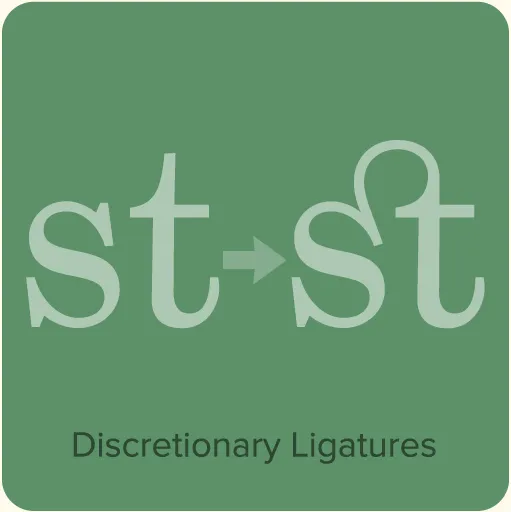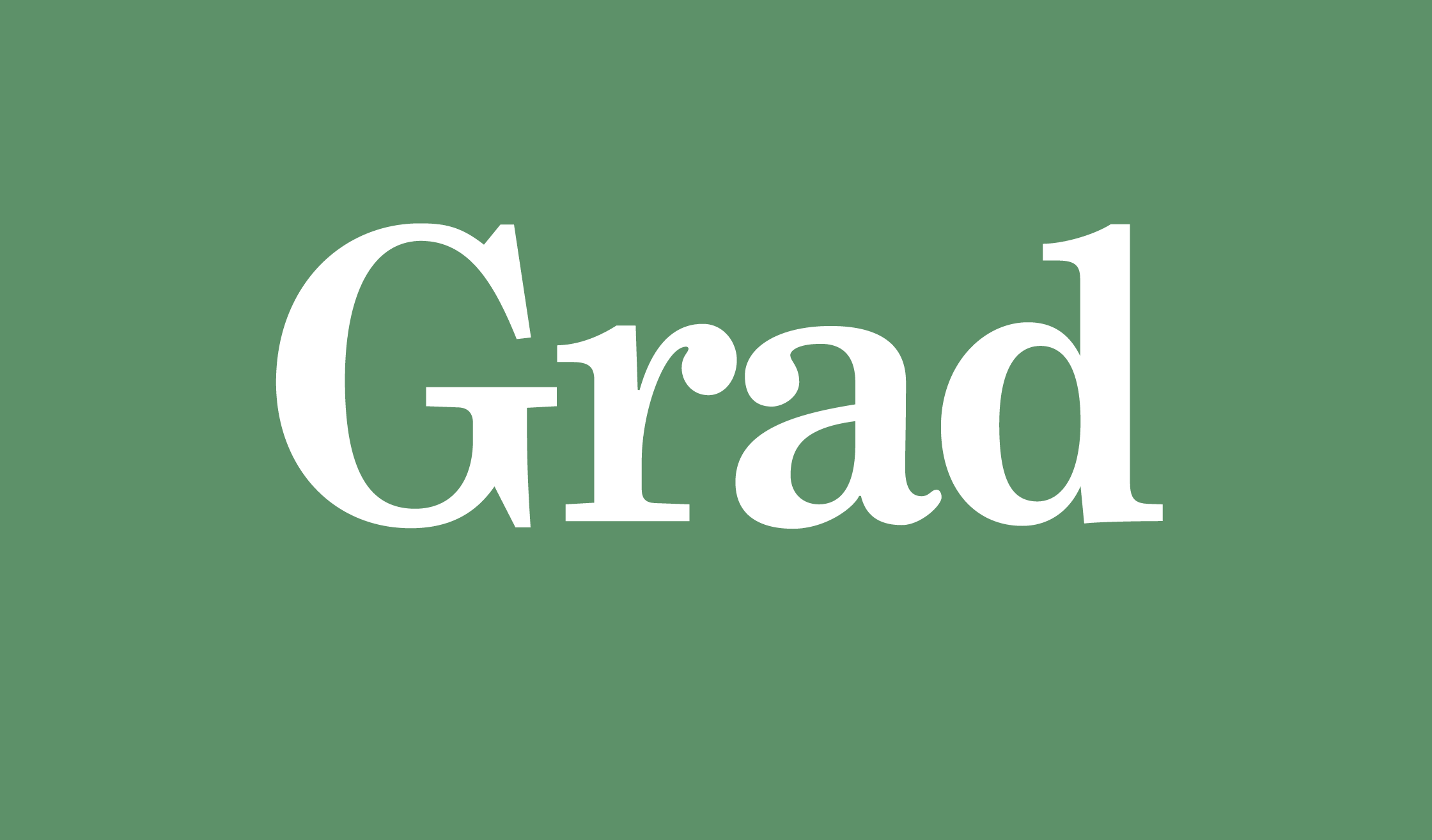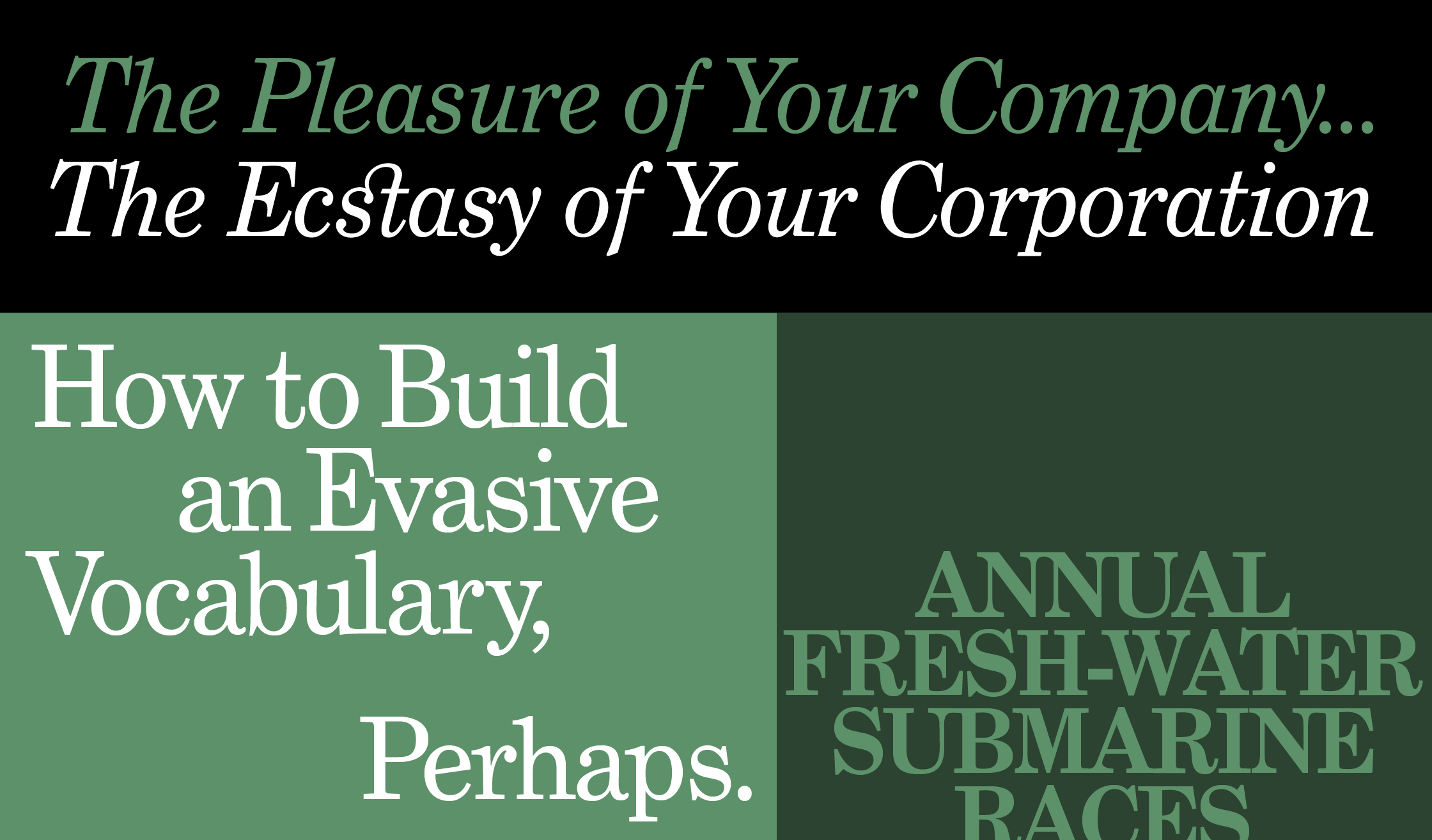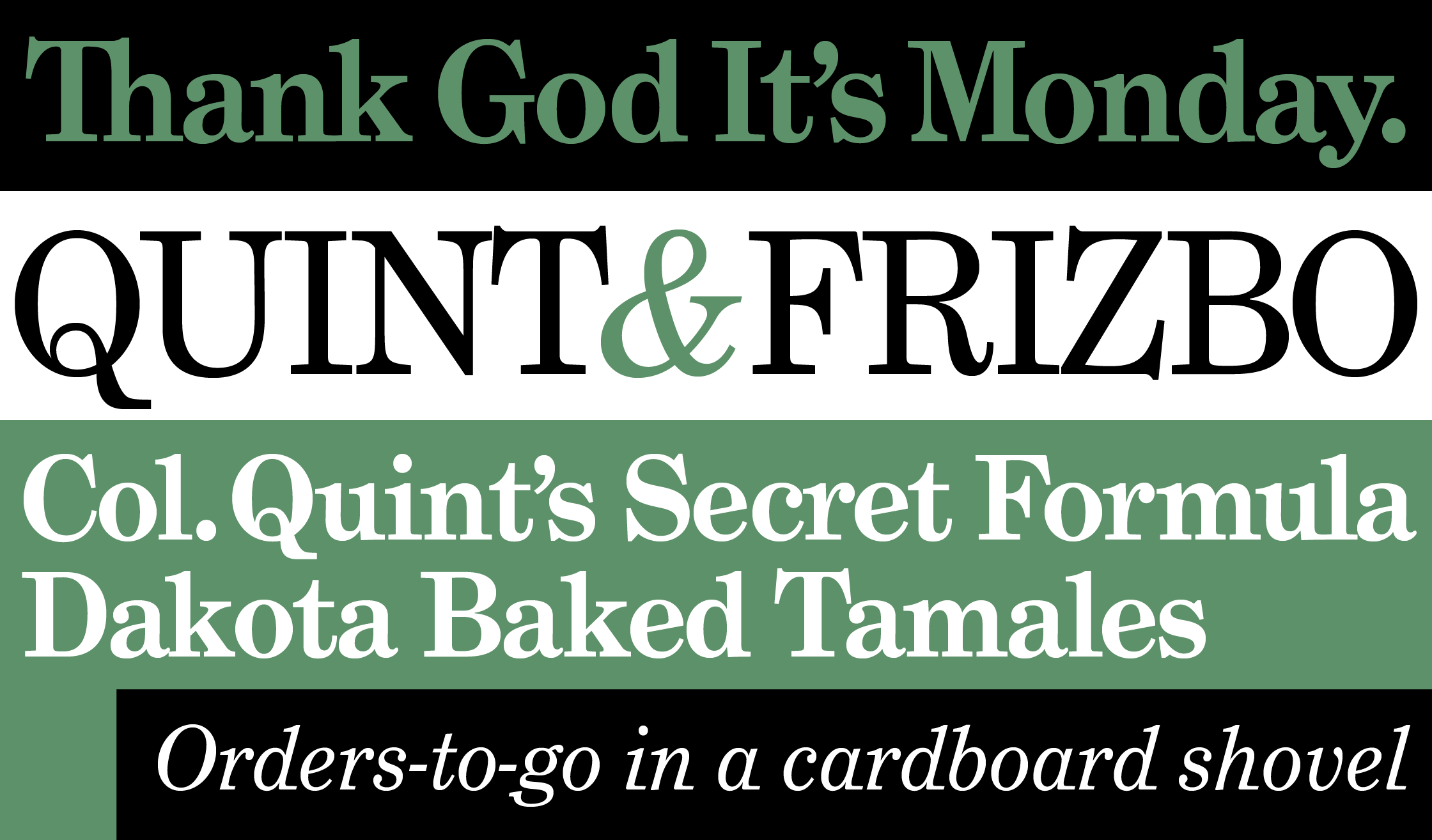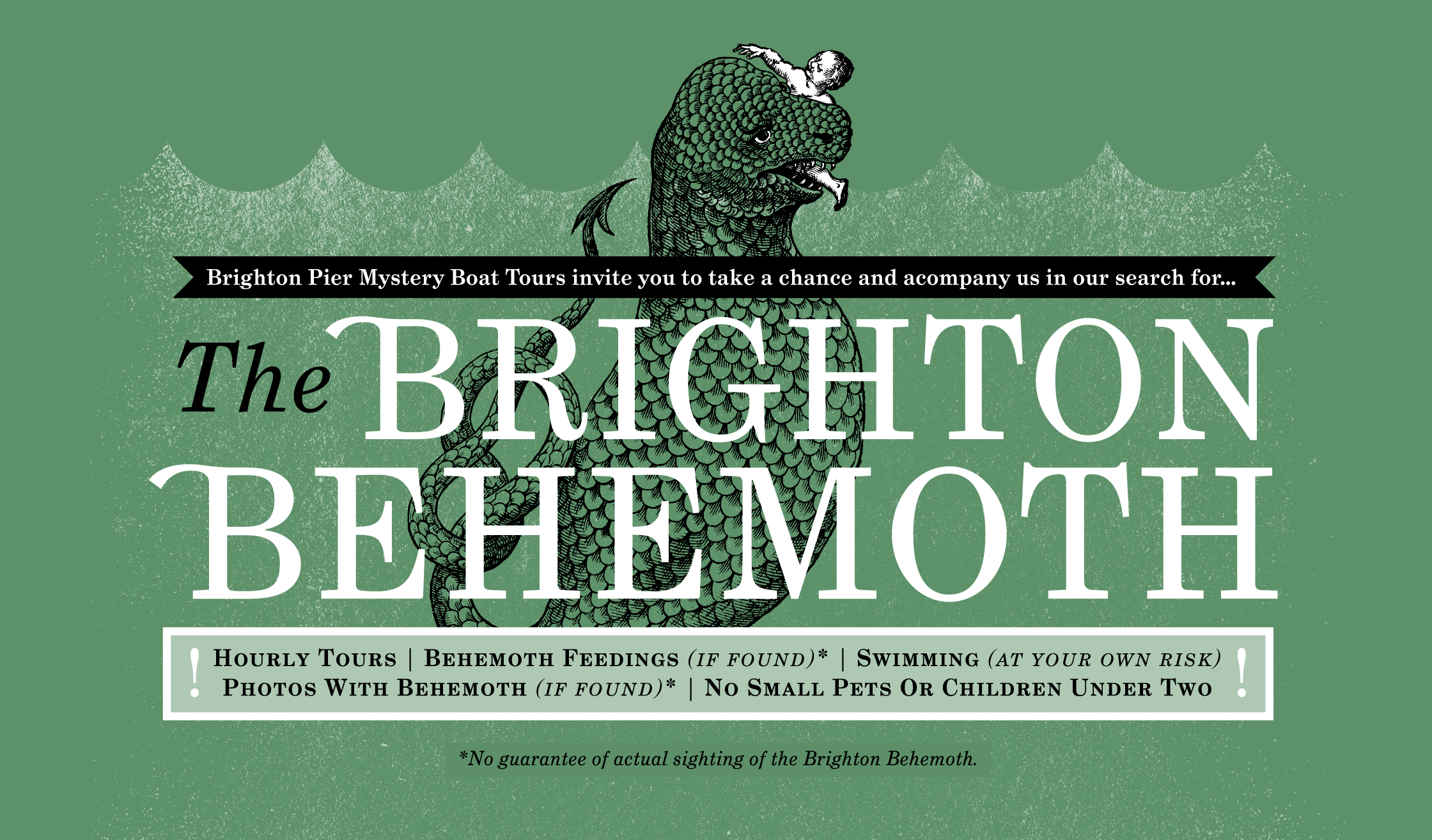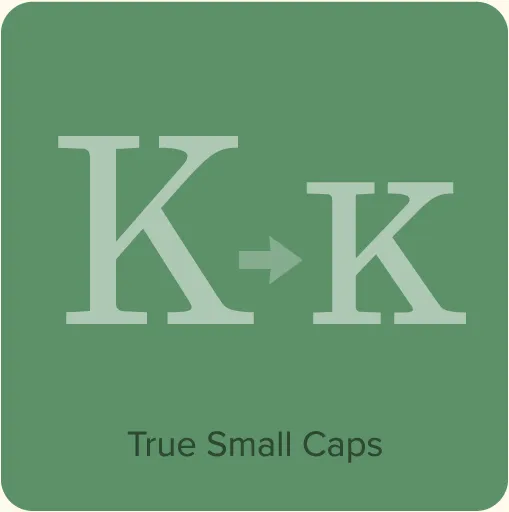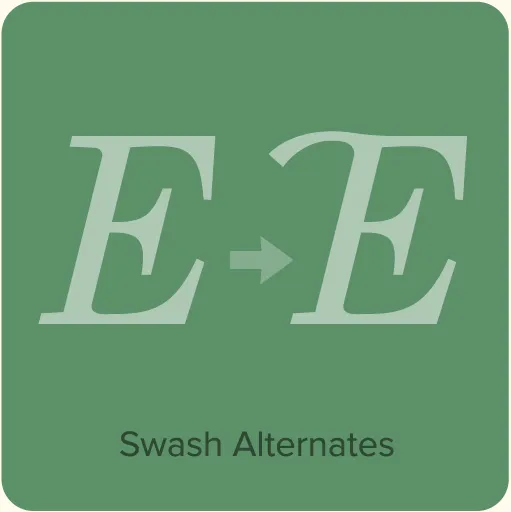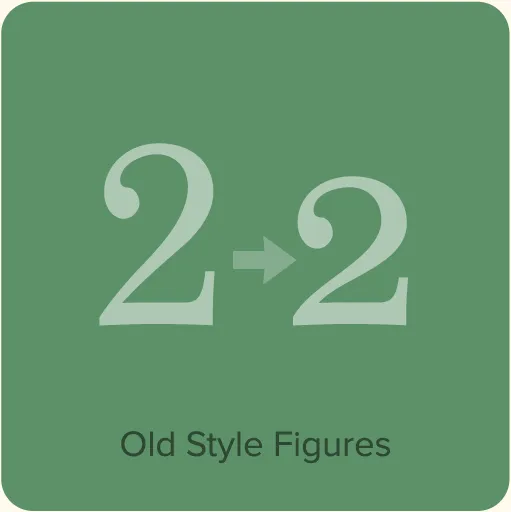
Grad (2004) was designed in the early ’90s by Phil Martin, creator of over 400 typefaces back in the ’60s and ’70s, and founder of Alphabet Innovations and Typespectra. Phil conceived of Grad as a redesign of Century Schoolbook. Editing bitmapped fonts on a DOS PC, he made design changes, some subtle and some obvious. He also added features like small caps, old style figures, ligatures, and swash capitals. Working with Phil, I brought Grad into the 21st century as a family of three feature-rich OpenType fonts.
- Three styles: Regular, Italic, and Bold.
- Ligatures (fi, fl, ff, ffi, ffl).
- Discretionary Ligatures (Th, ct, st).*
- Small caps.*
- Lining and old style figures.*
- Swash characters.*
- Ornaments (four).*
- Extended language support for most Latin-based Western and Central European languages.